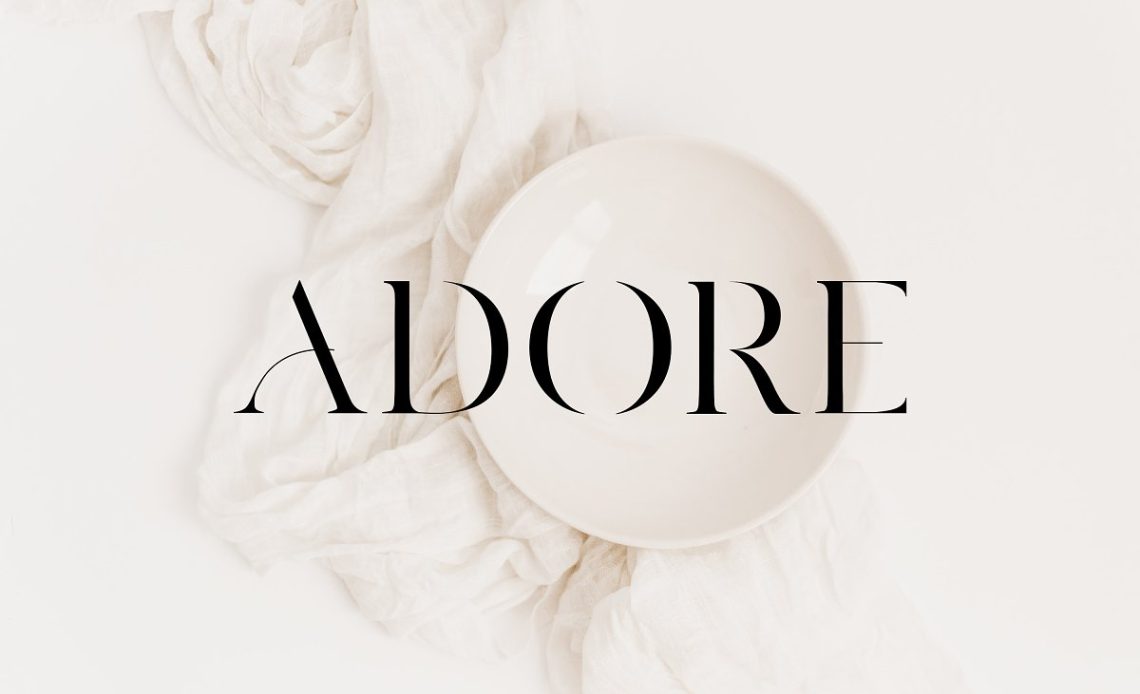
Are you tired of using the same old boring fonts in your professional documents? Introducing Adore Modern Serif Font, the font for modern resumes that will elevate your document to a whole new level of sophistication.
Created by the talented Elvina Gafarova, Adore font is an elegant serif typeface with delicate details that will make your resume stand out from the crowd. This neat font can contribute to the modern and fashionable appeal of your brand, giving your resume a professional and stylish look.
With OTF and TTF font files available, Adore Modern Serif Font comes with upper and lowercase letters, numbers, and punctuations, making it the perfect font for any professional document. What's more, it supports a wide range of languages, including English, German, French, Spanish, Italian, Danish, Finnish, Portuguese, Swedish, Norwegian, Dutch, Indonesian, Luxembourgish, Icelandic, Cornish, Hungarian, Filipino, Romansh, Slovenian, Estonian, and Turkish.